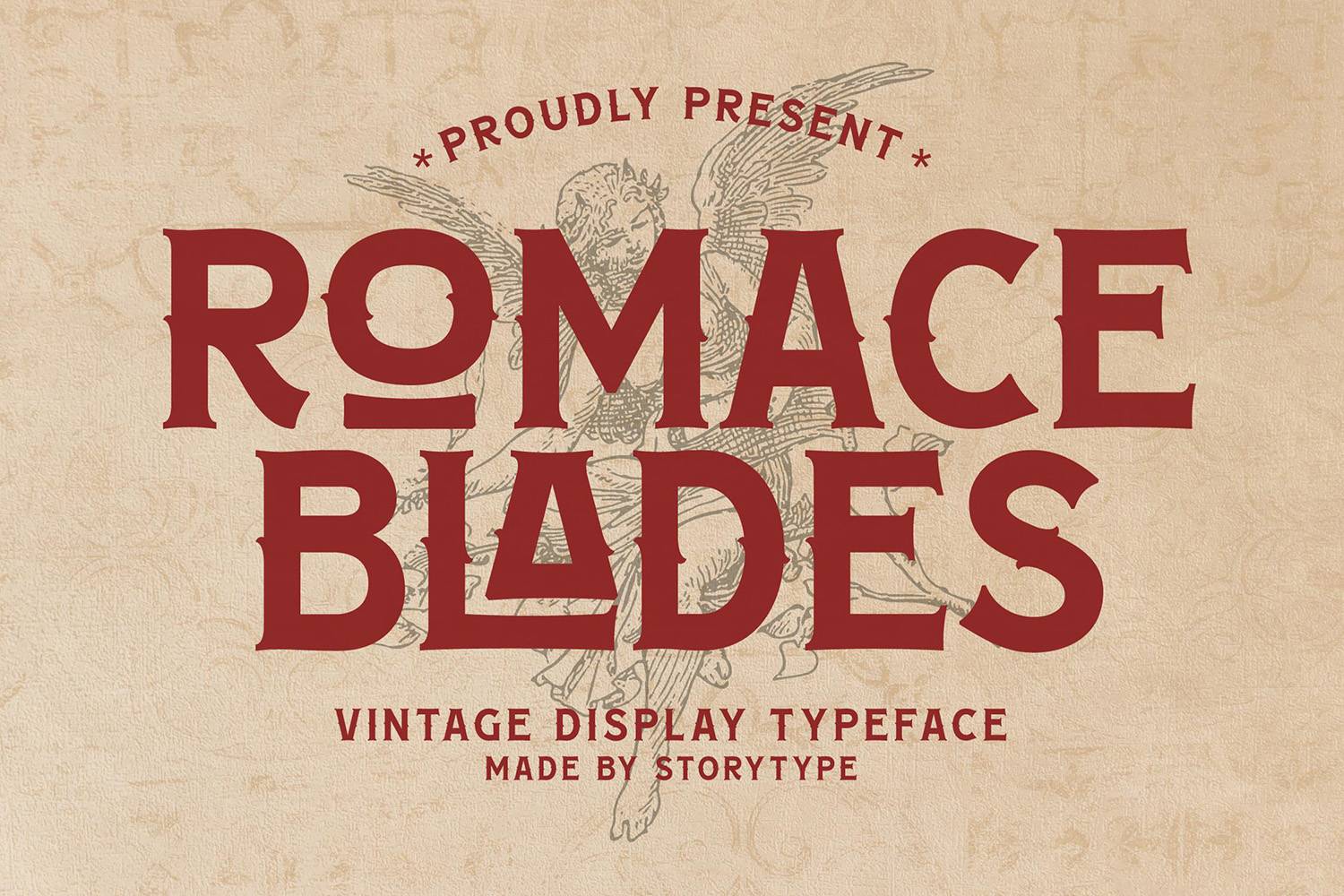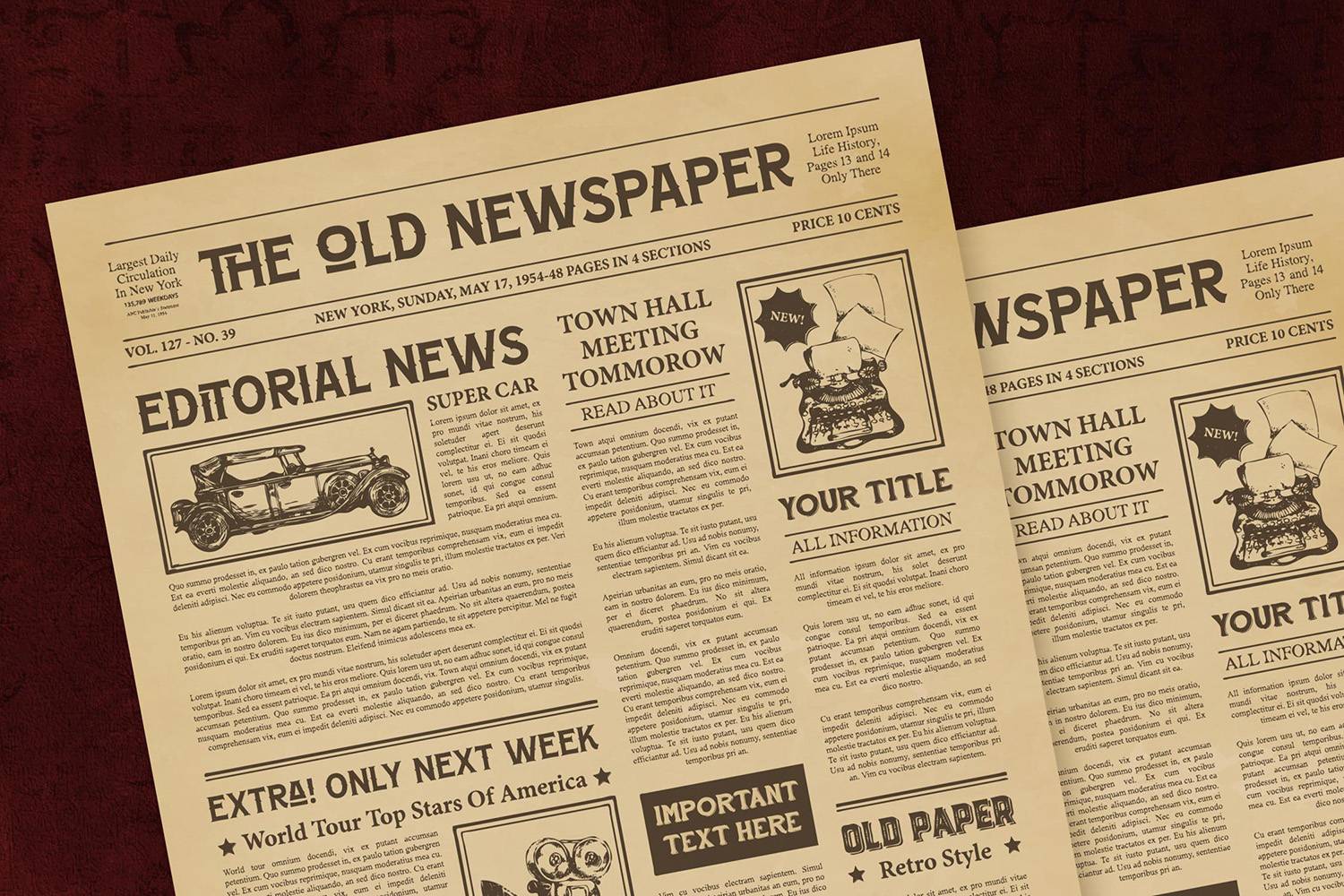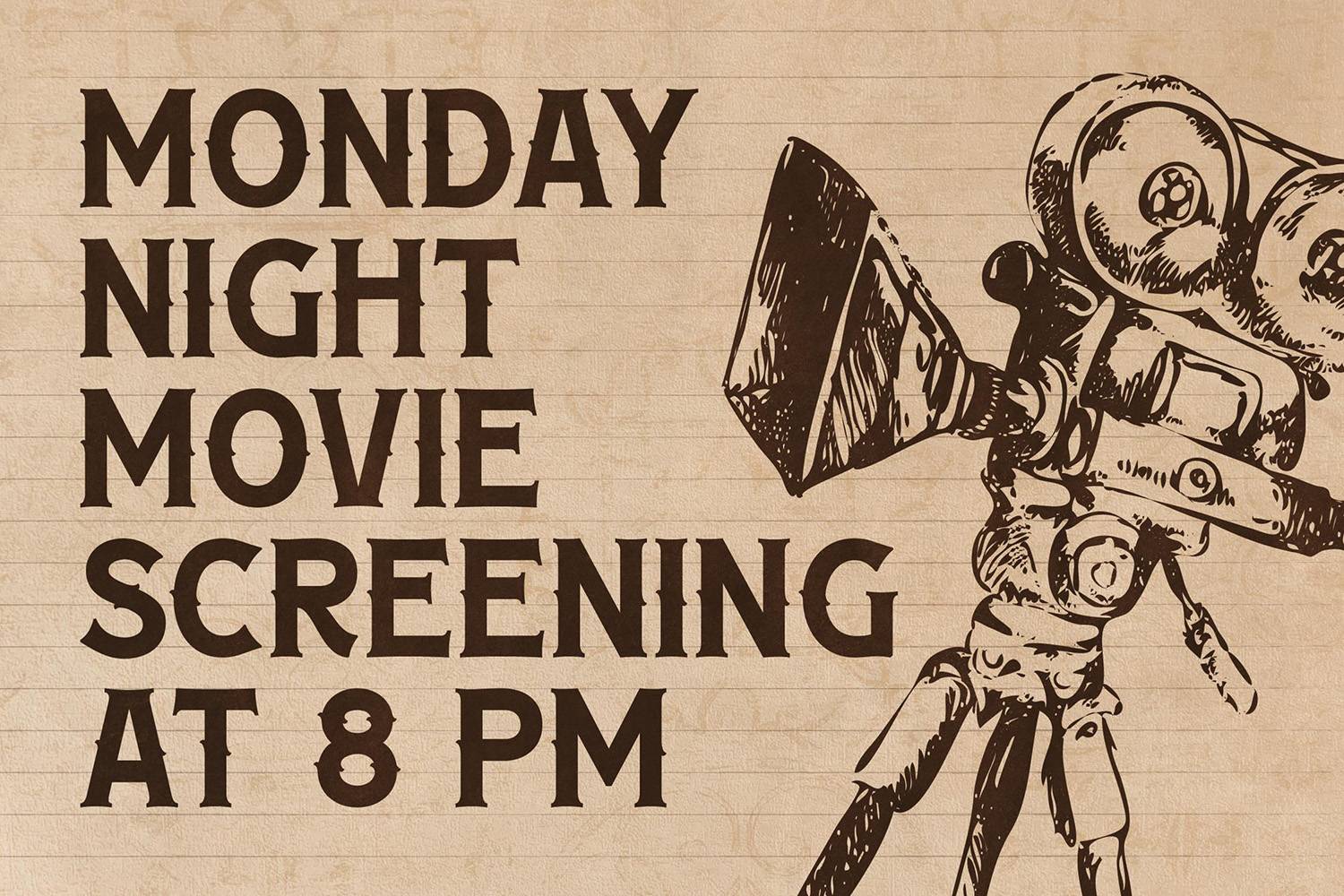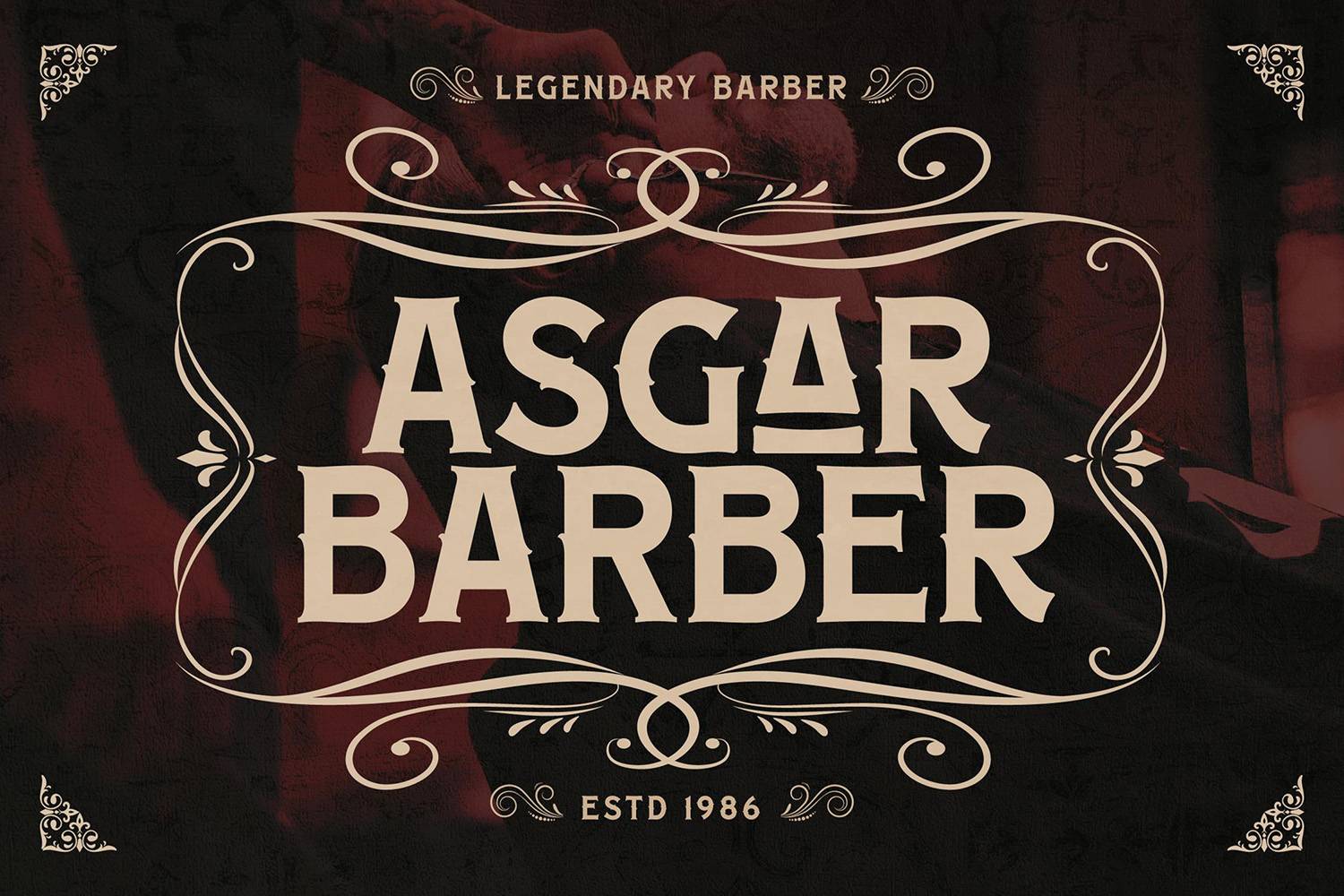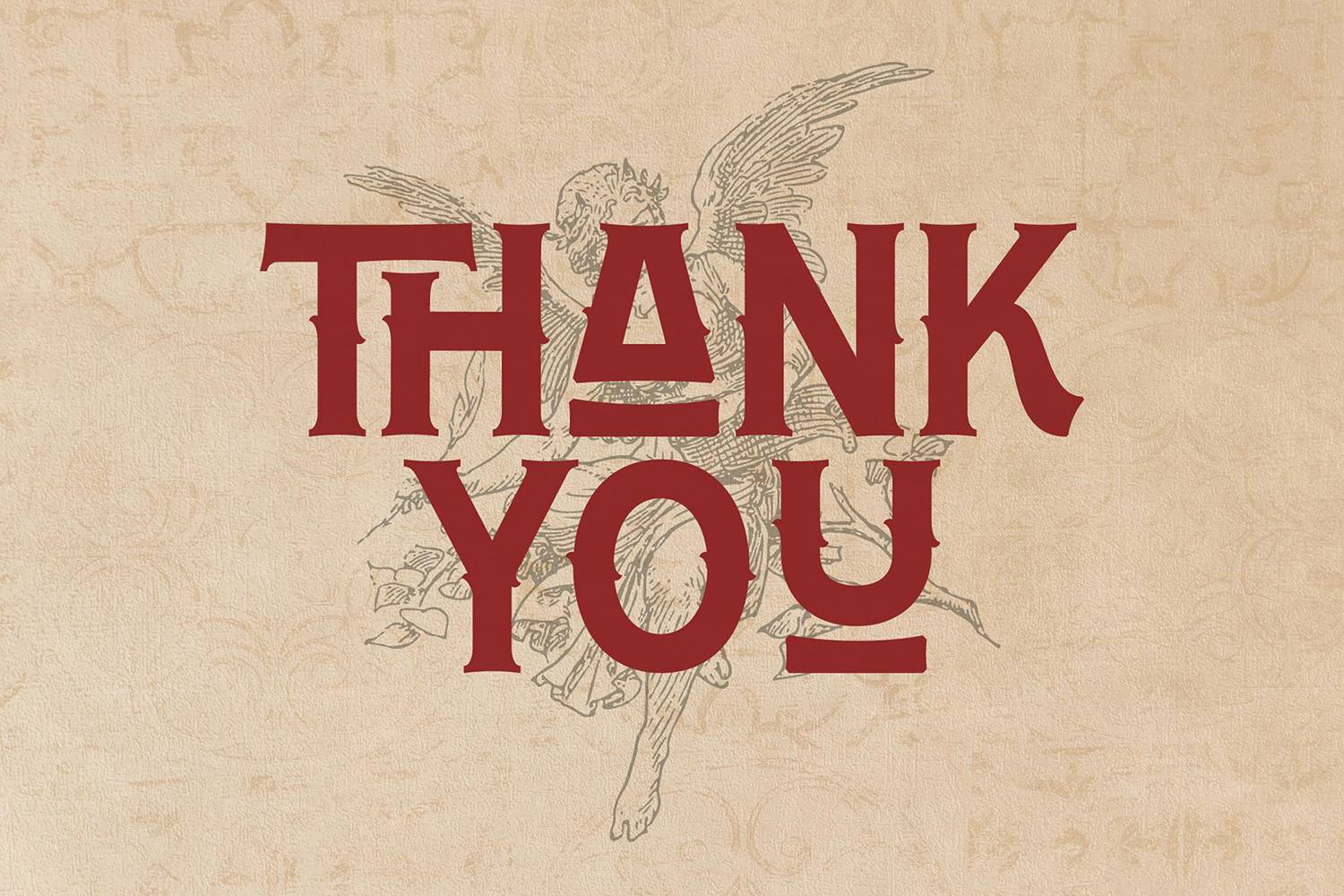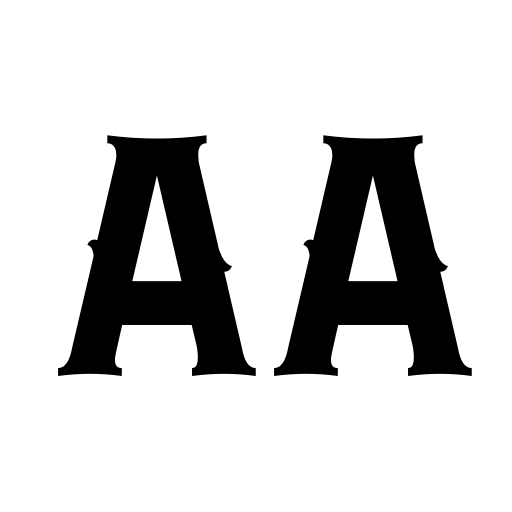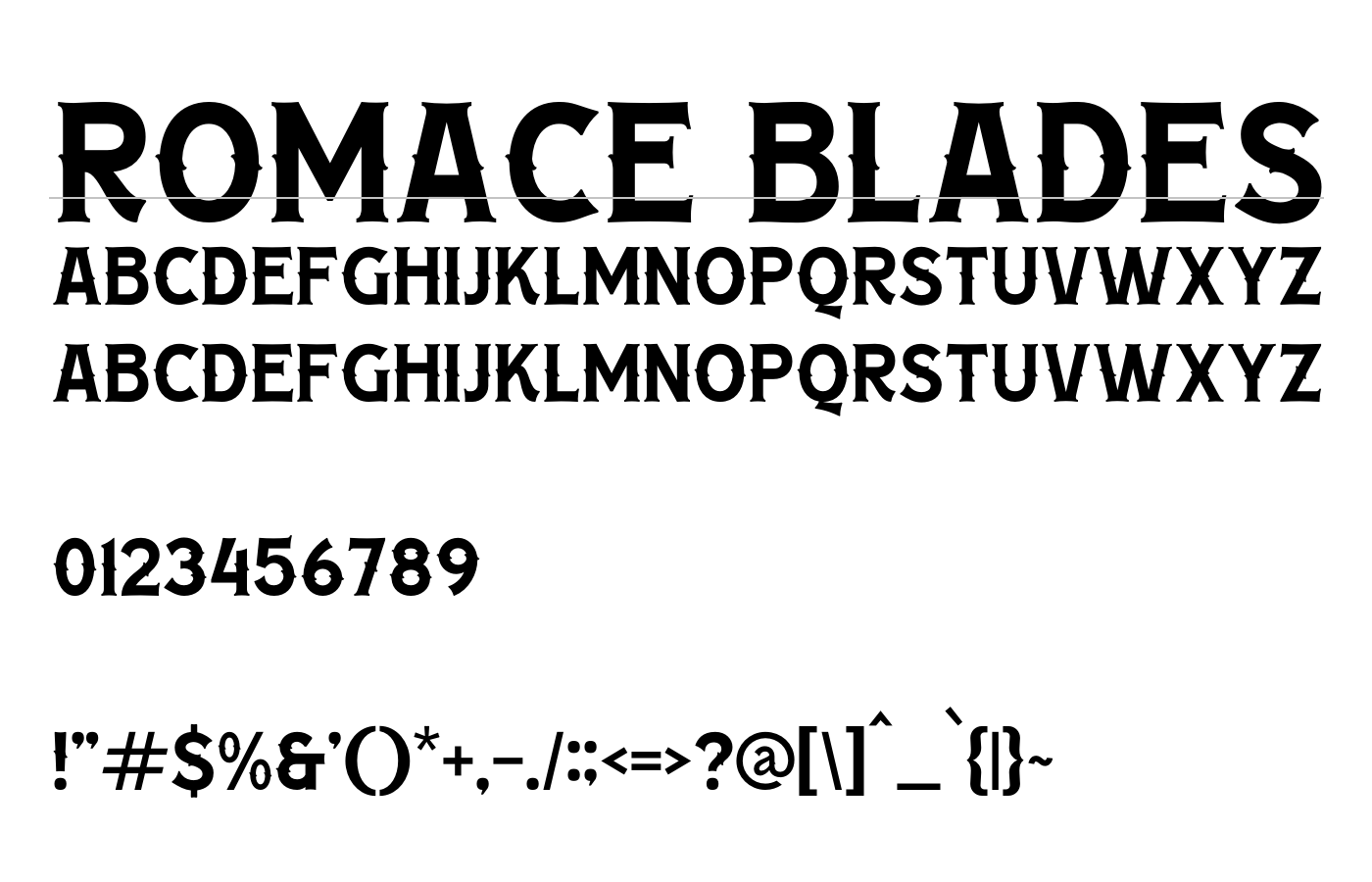
Romace Blades is a bold, serif display font with a distinctive vintage feel, characterized by its thick, sharp serifs and slightly condensed letterforms. Its high contrast strokes and unique details, like the pointed terminals and stylized curves, give it a strong, dramatic personality perfect for attention-grabbing headlines, logos, and branding with a classic yet edgy vibe. This font works well in designs aiming for a blend of elegance and boldness, making it ideal for posters, packaging, and fashion-related projects.
Romace Blades Font
About Romace Blades Font